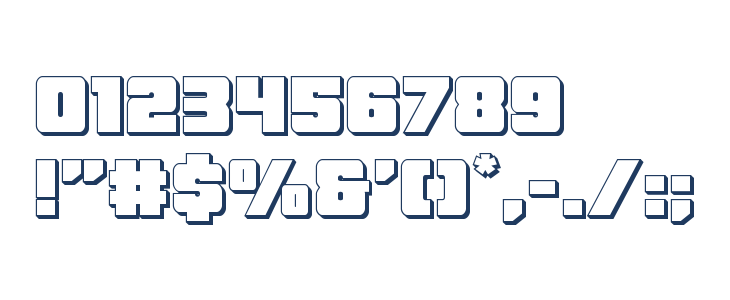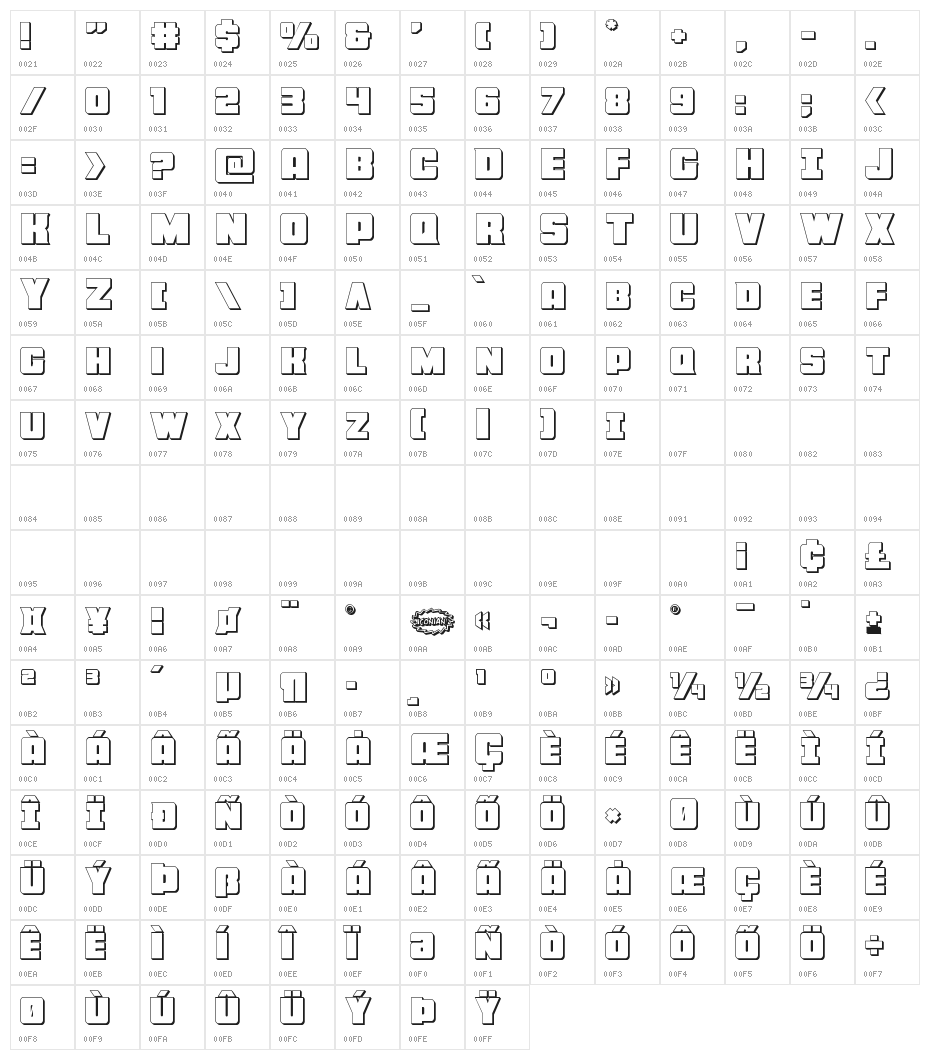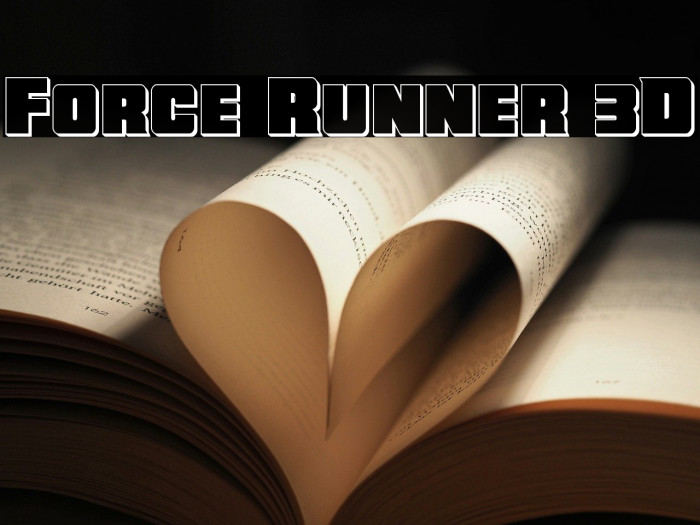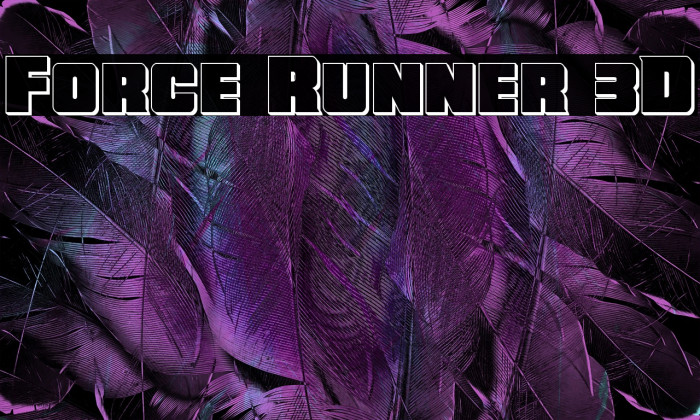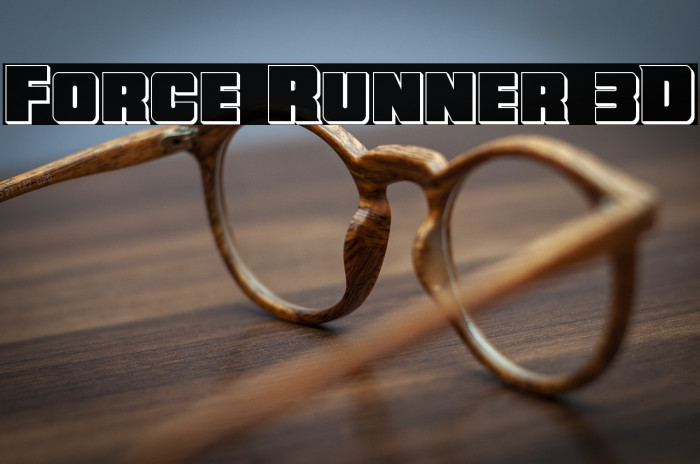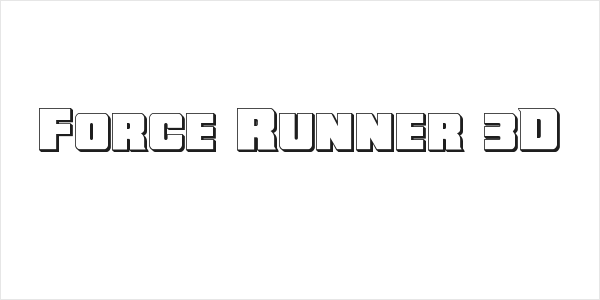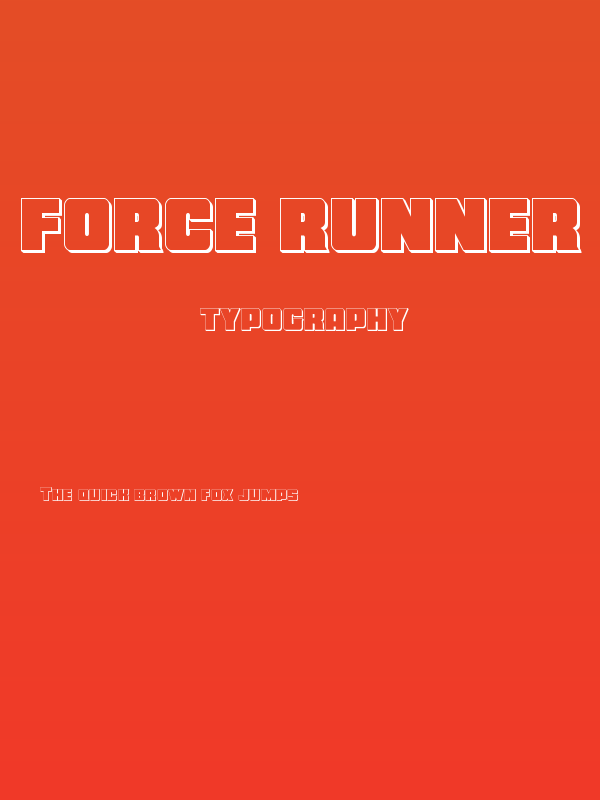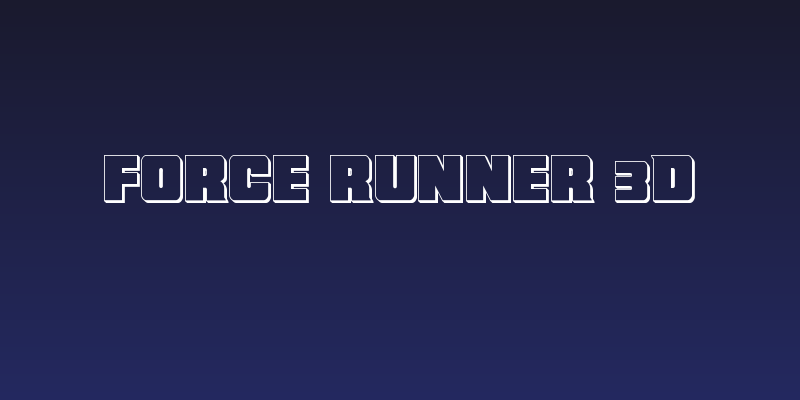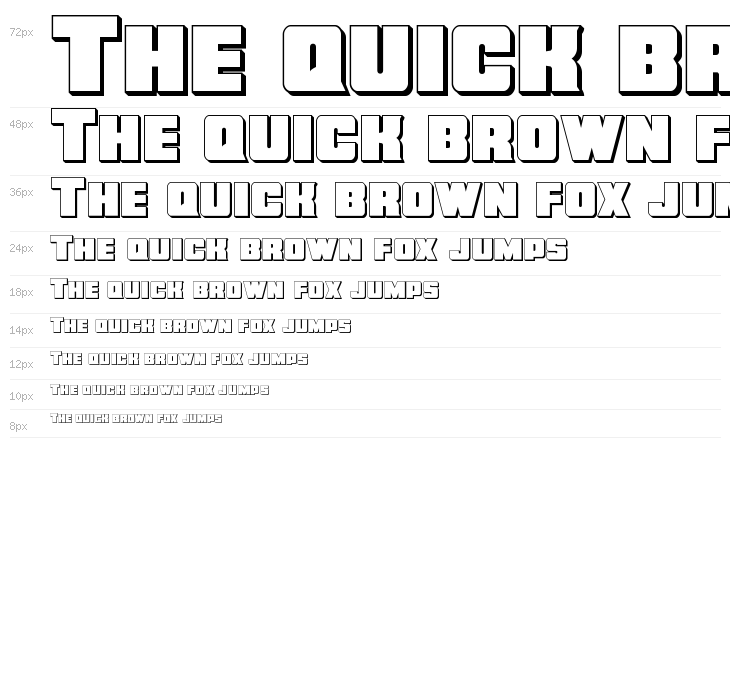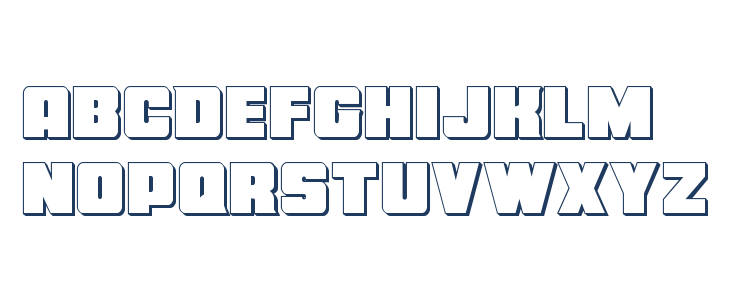
Force Runner 3D Font
Force Runner 3D Description
This font features a bold, three-dimensional design that gives each character a strong, impactful presence. The letters are blocky and robust, with a shadow effect that enhances the 3D illusion. The edges are sharp and well-defined, contributing to a modern and futuristic aesthetic. The uppercase and lowercase letters maintain a consistent style, ensuring uniformity across text. Numbers and special characters are designed with the same boldness and dimensionality, making them stand out effectively. This font is ideal for projects that require a strong visual impact.
| Proposed Projects | Ideal for video game titles, posters, and branding that require a strong, futuristic look. |